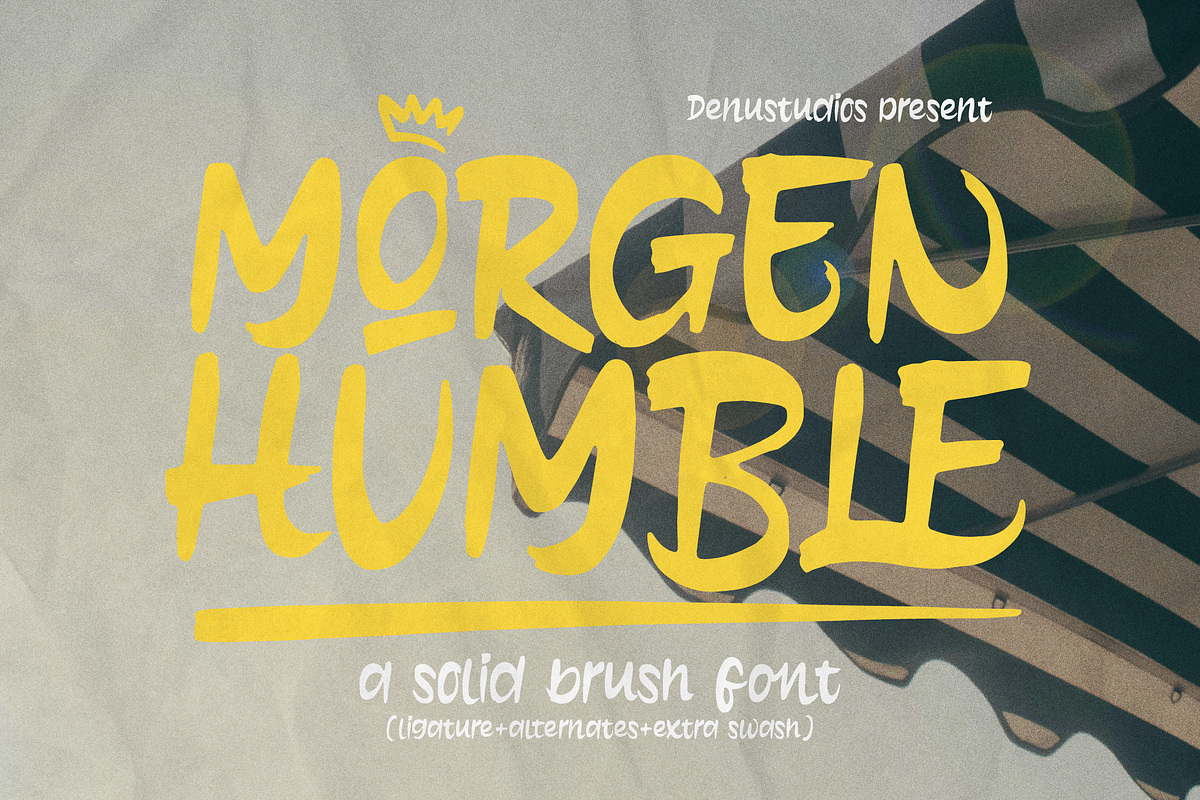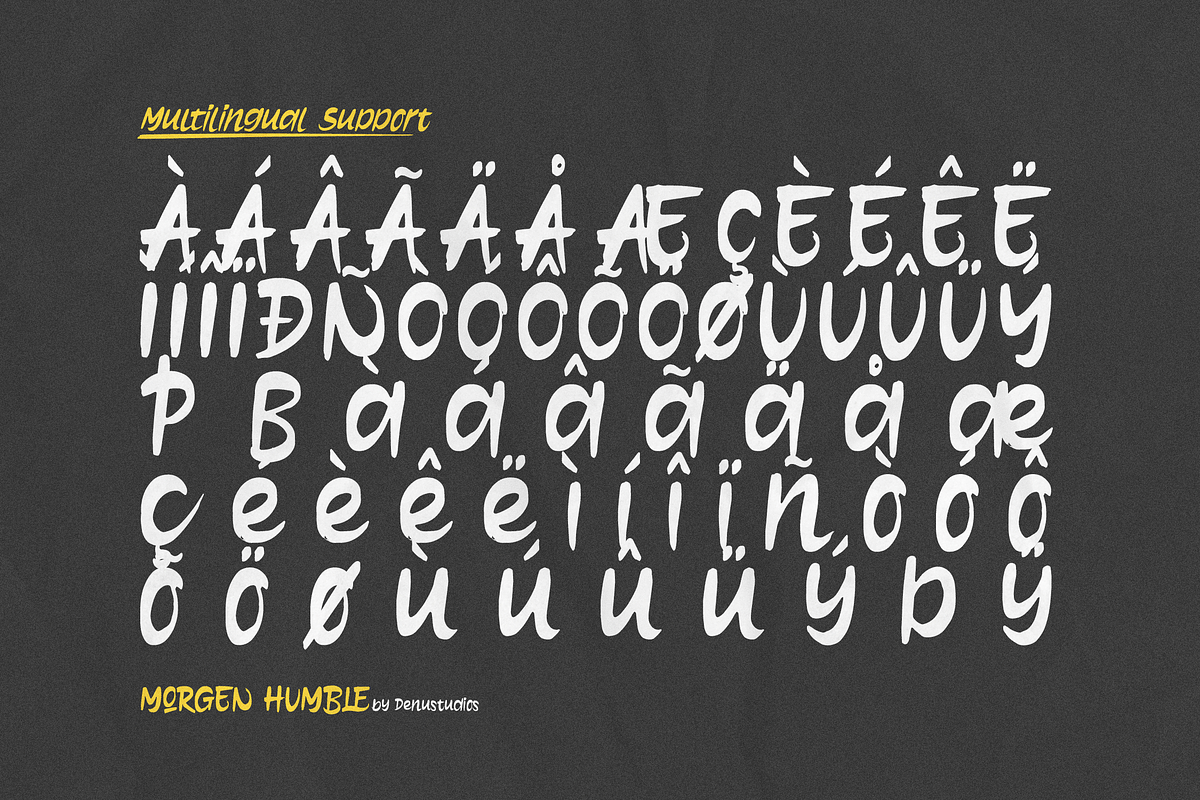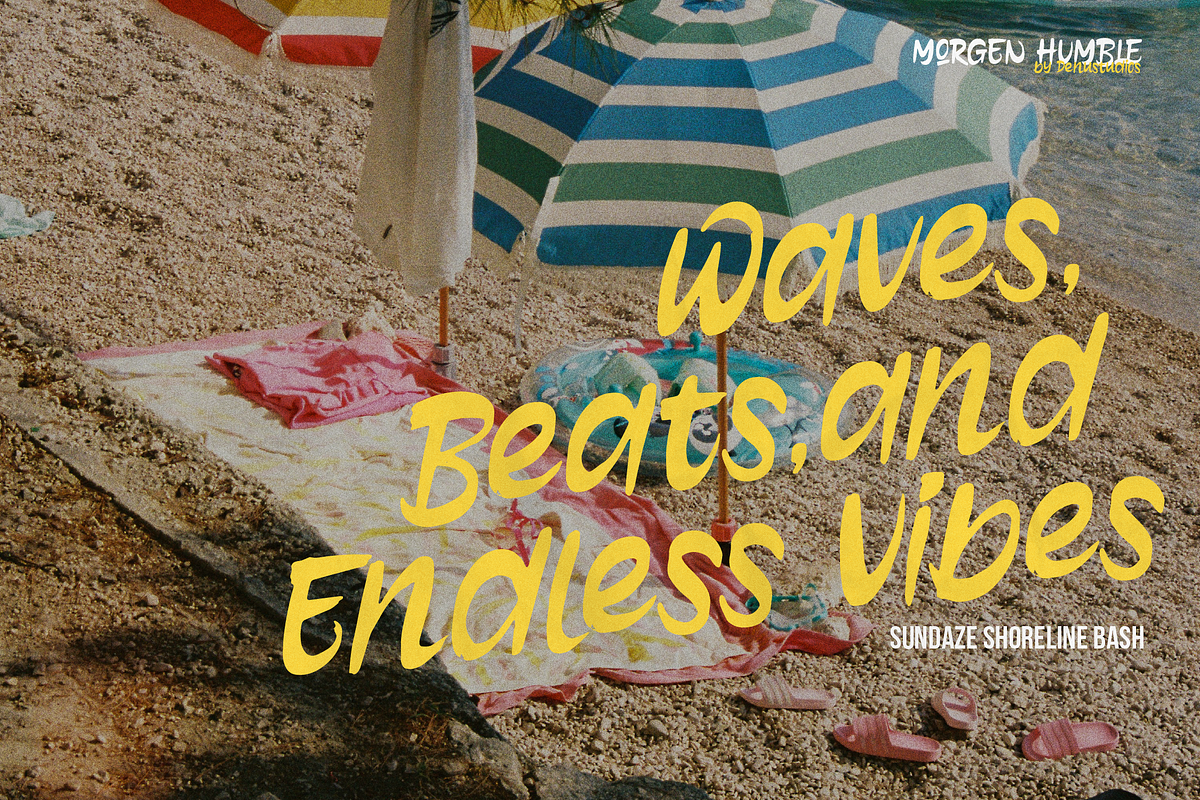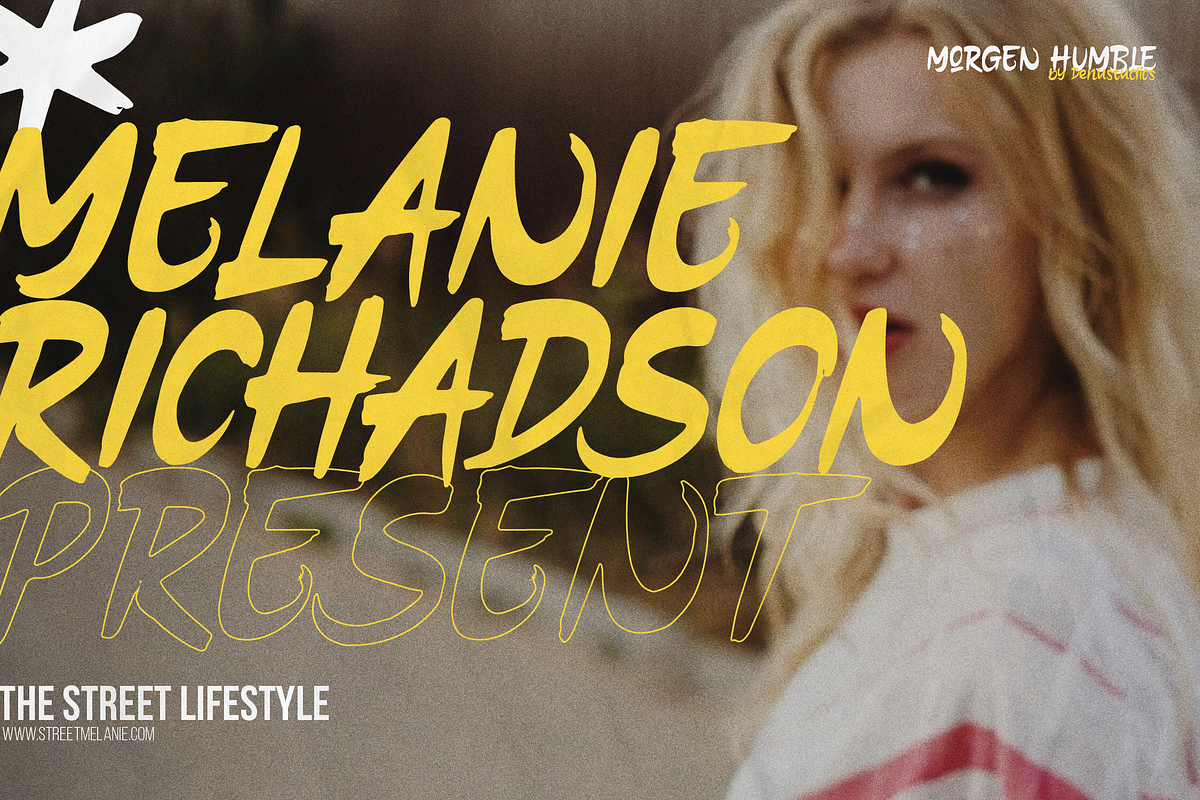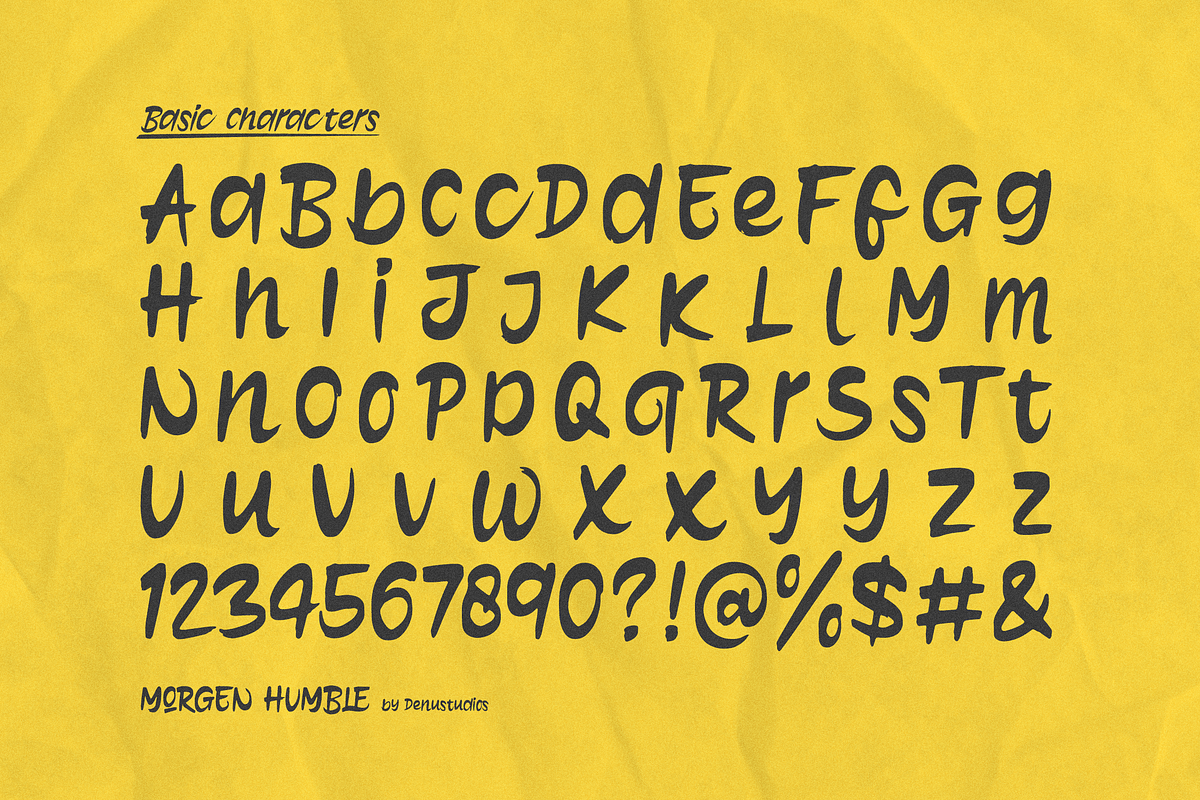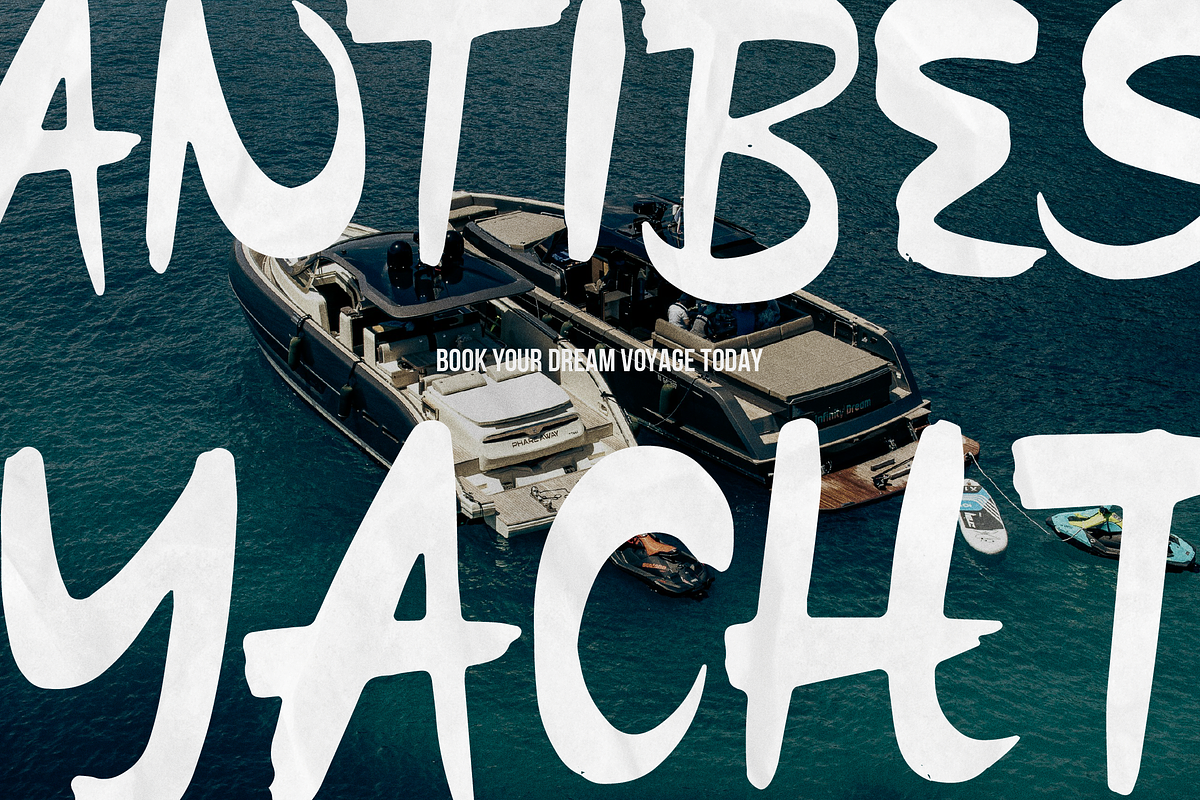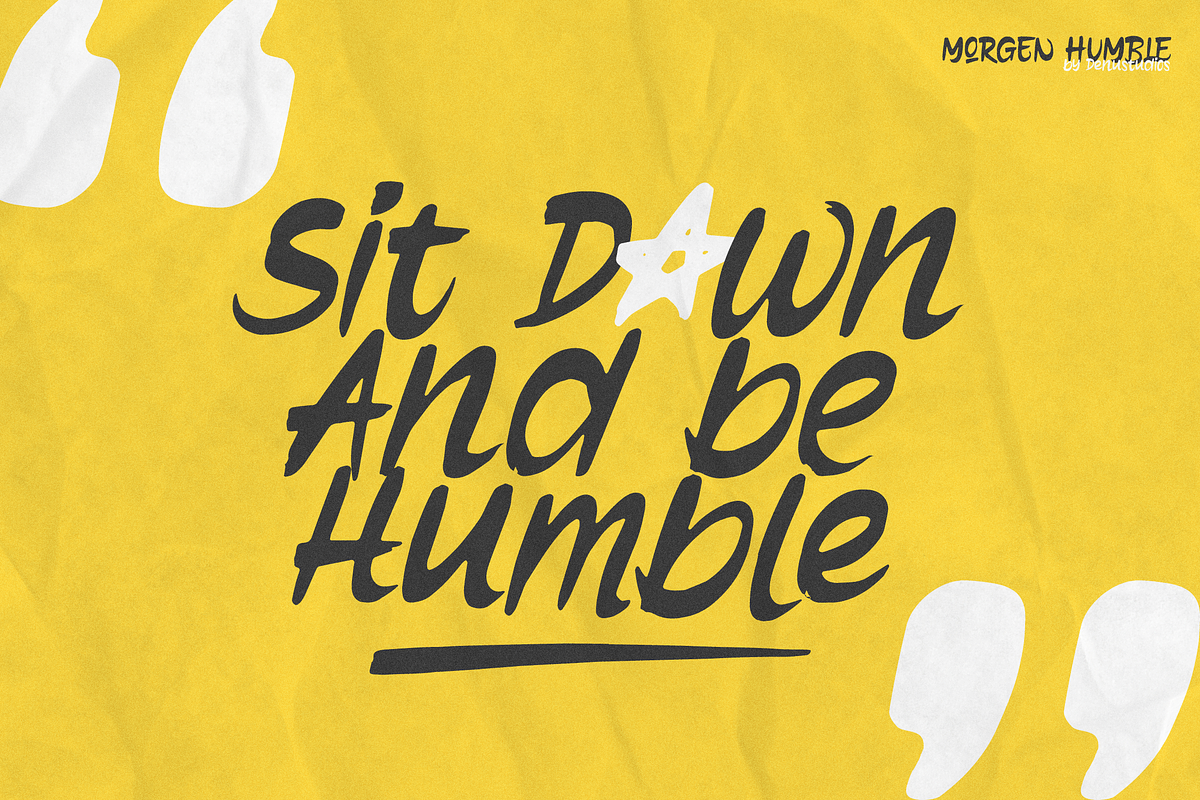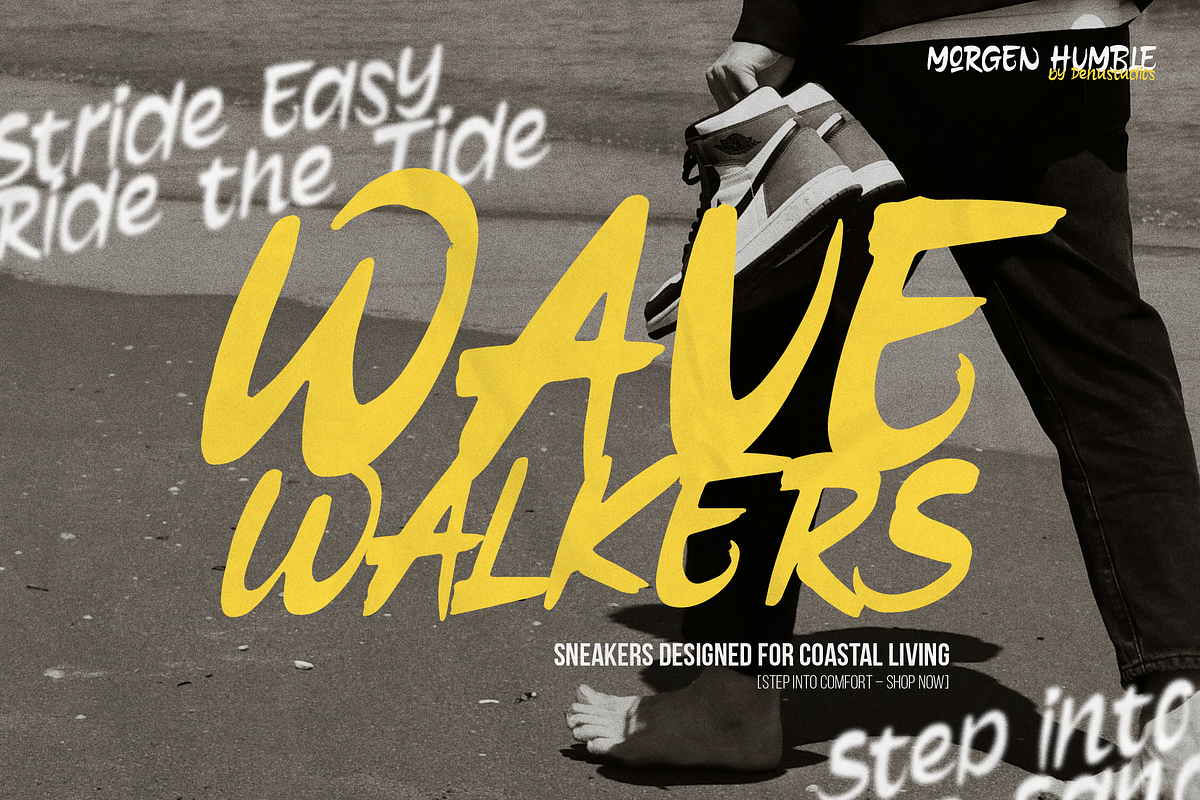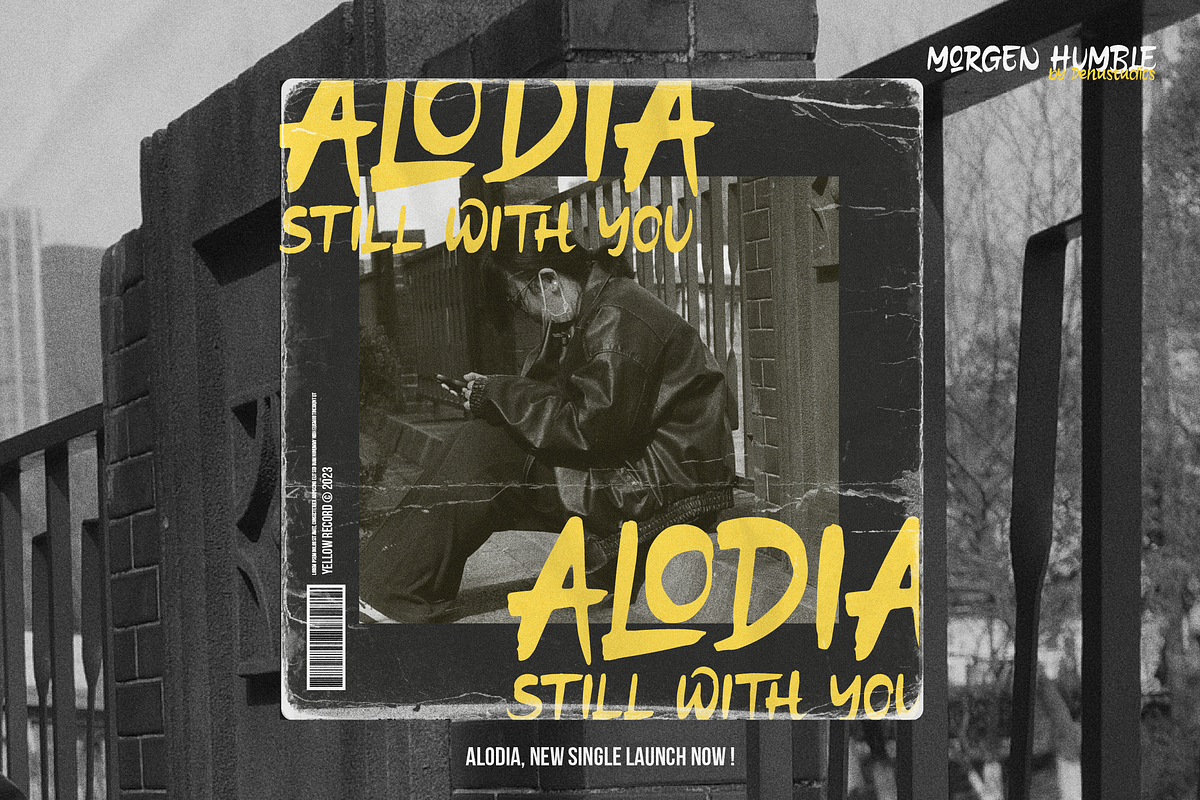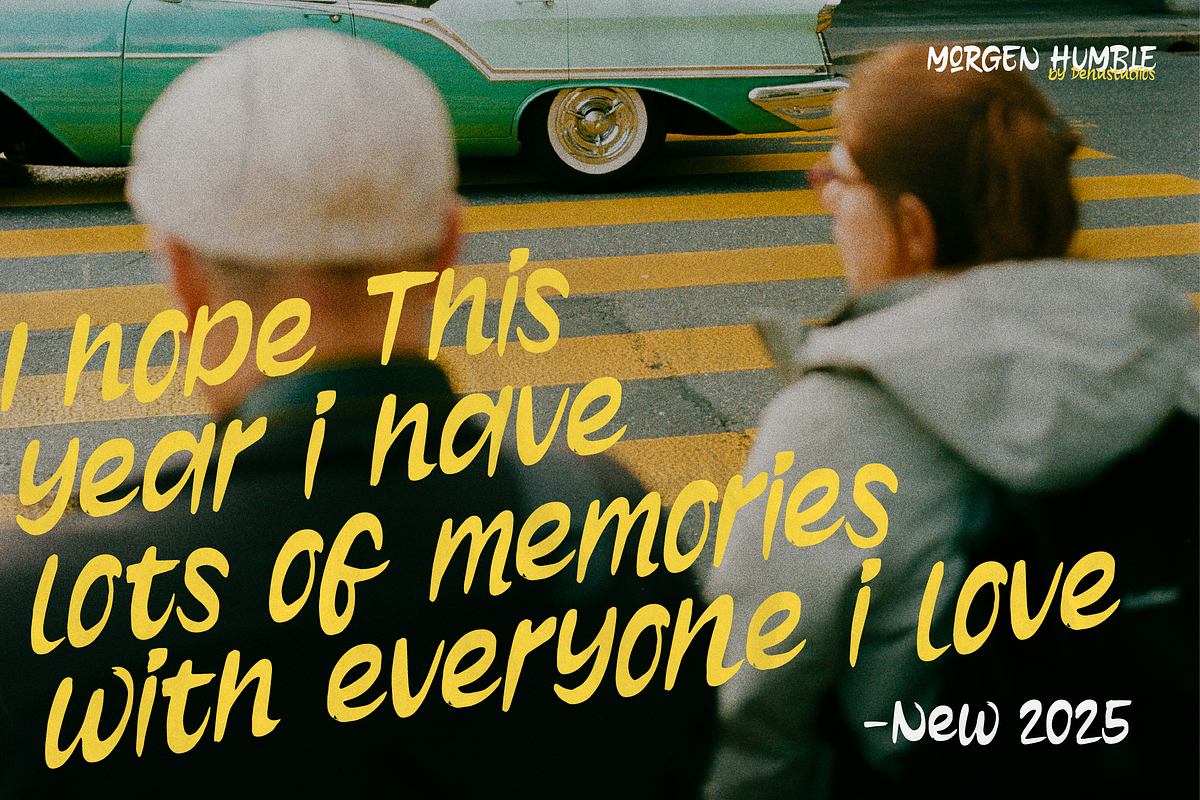
Morgen Humble | Solid Brush Font
Morgen Humble | Solid Brush Font, from Denustudios, suitable for any projects such as: logos, branding projects, homeware designs, product packaging, mugs, quotes, posters, shopping bags, t-shirts, book covers, name card, invitation cards, greeting cards, label, photography, watermark, special events, and all your other lovely projects that need a Solid Brush Font taste.